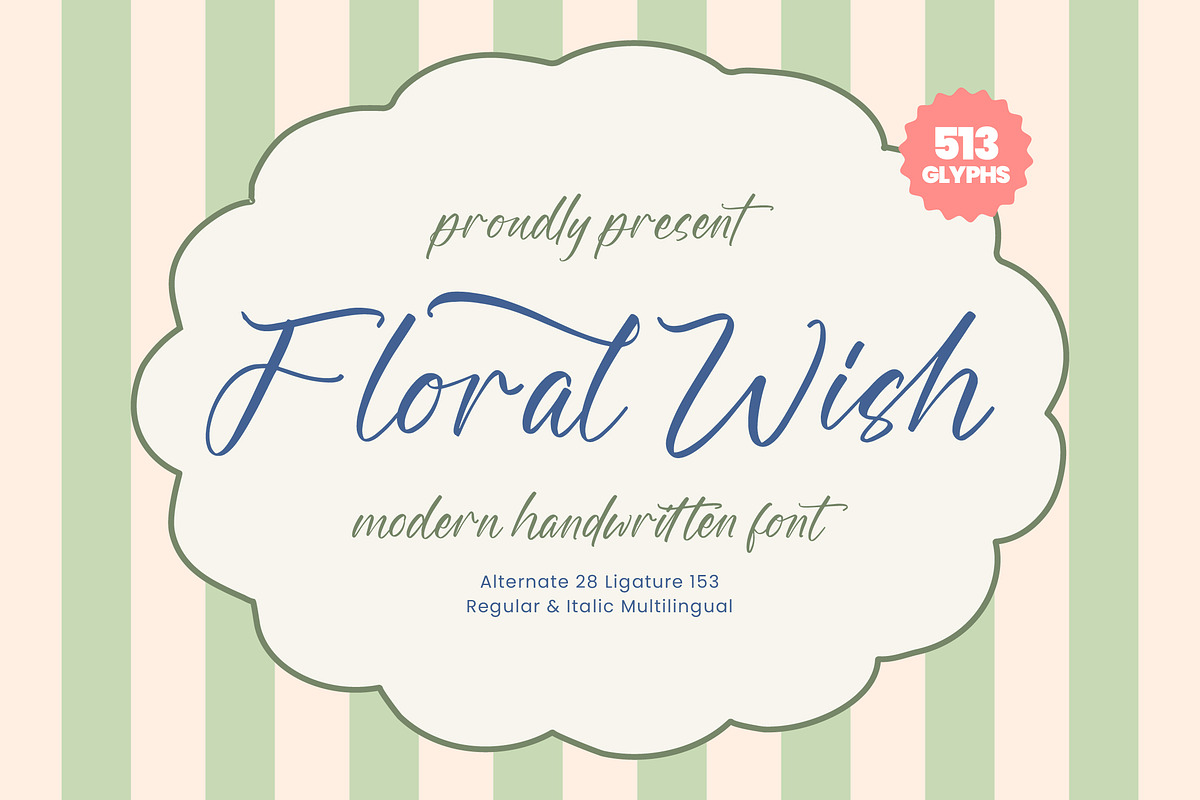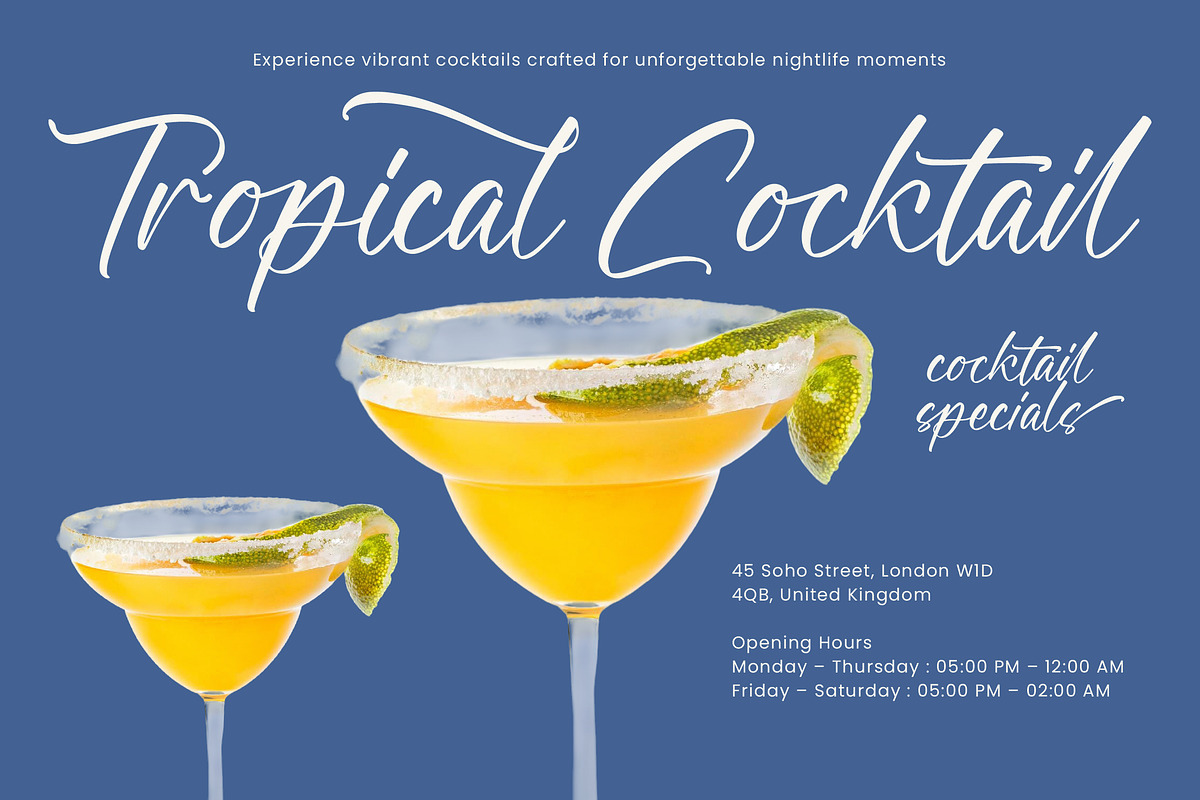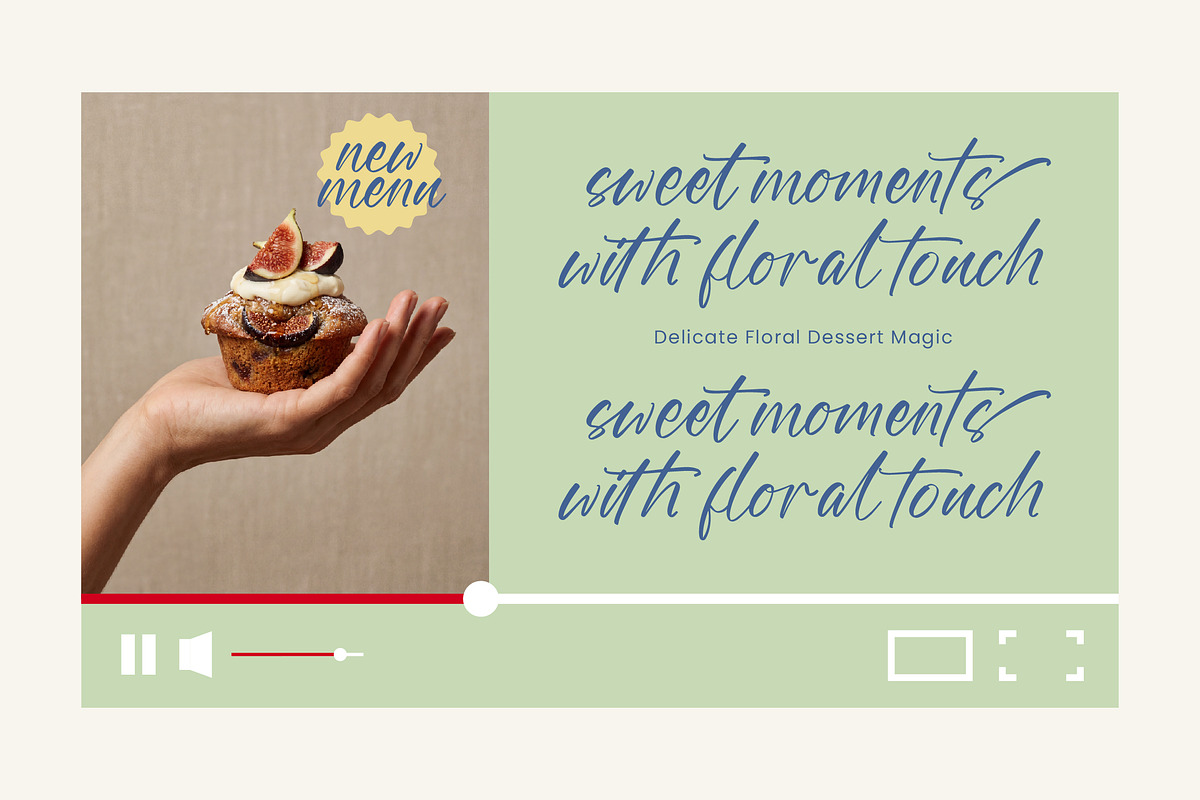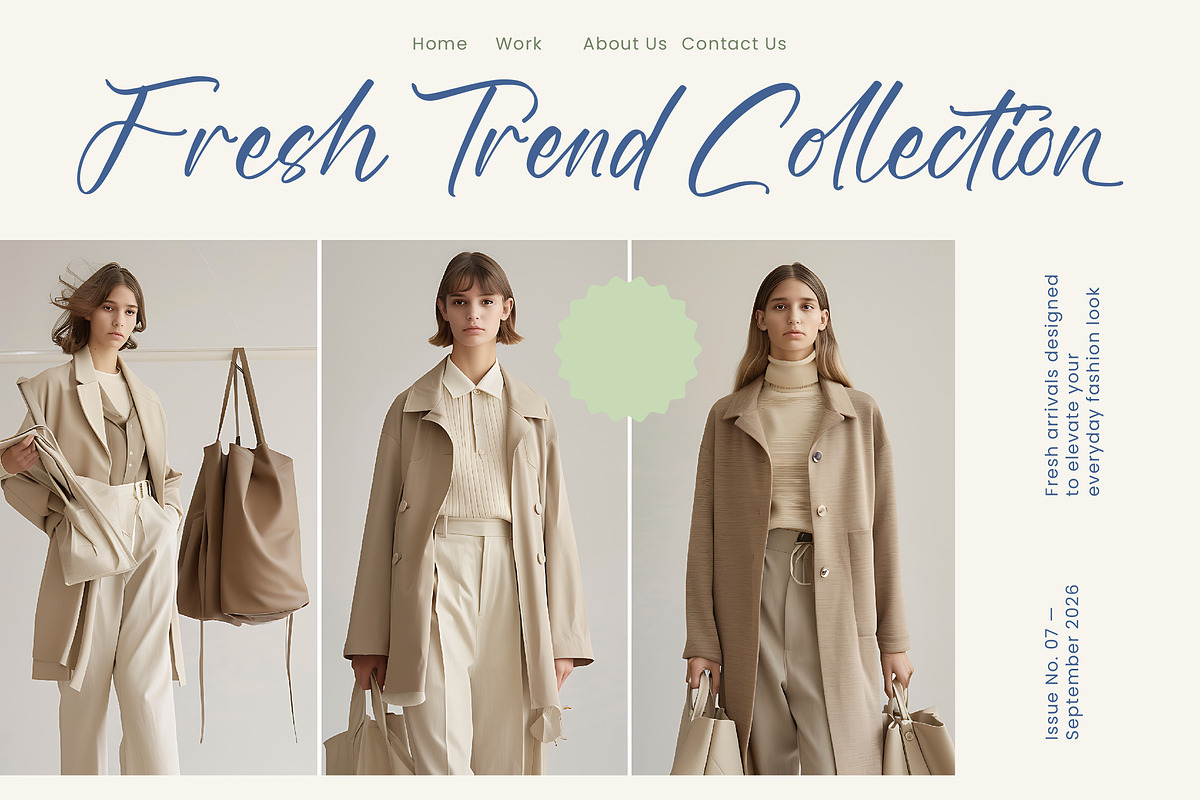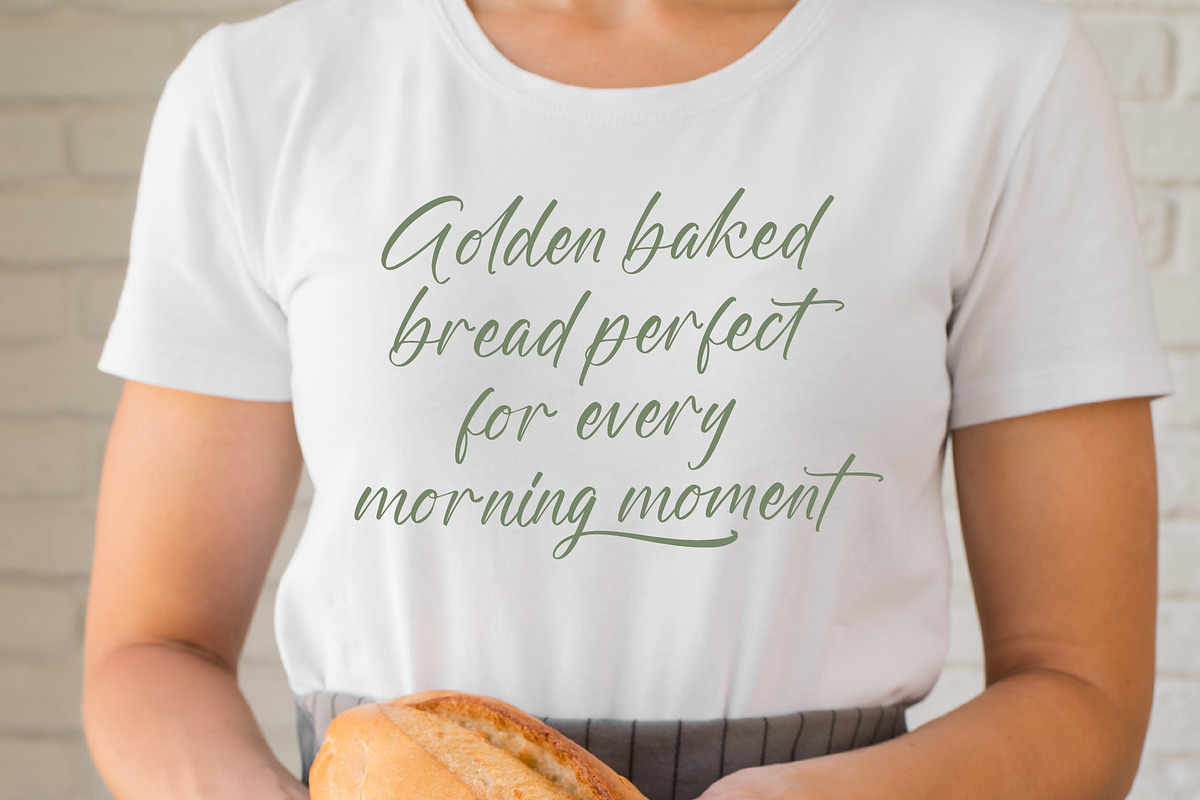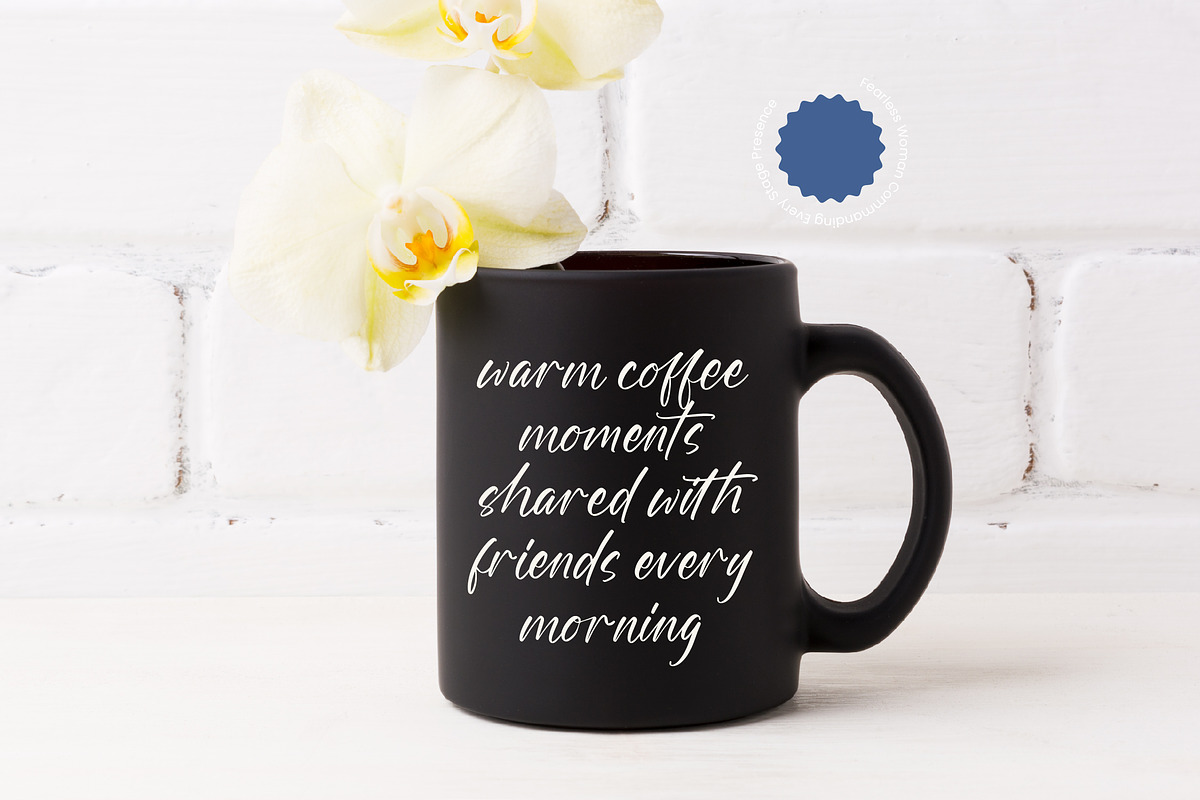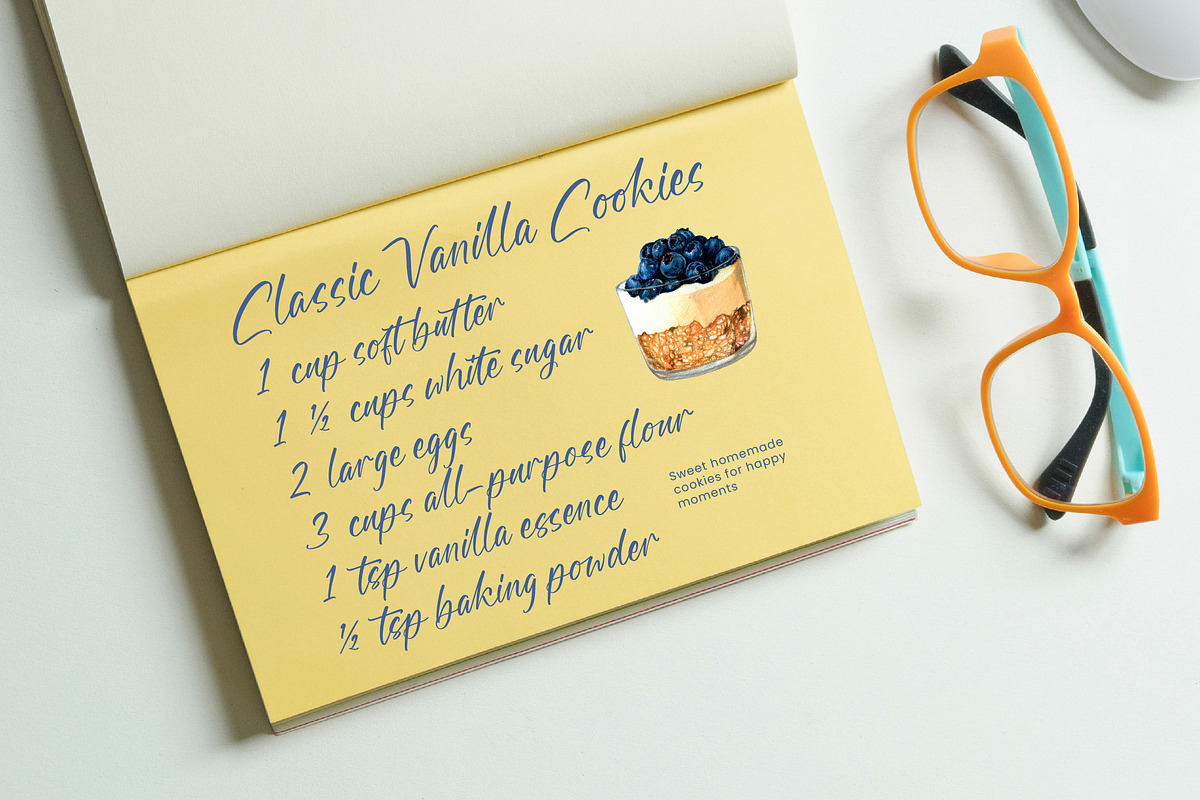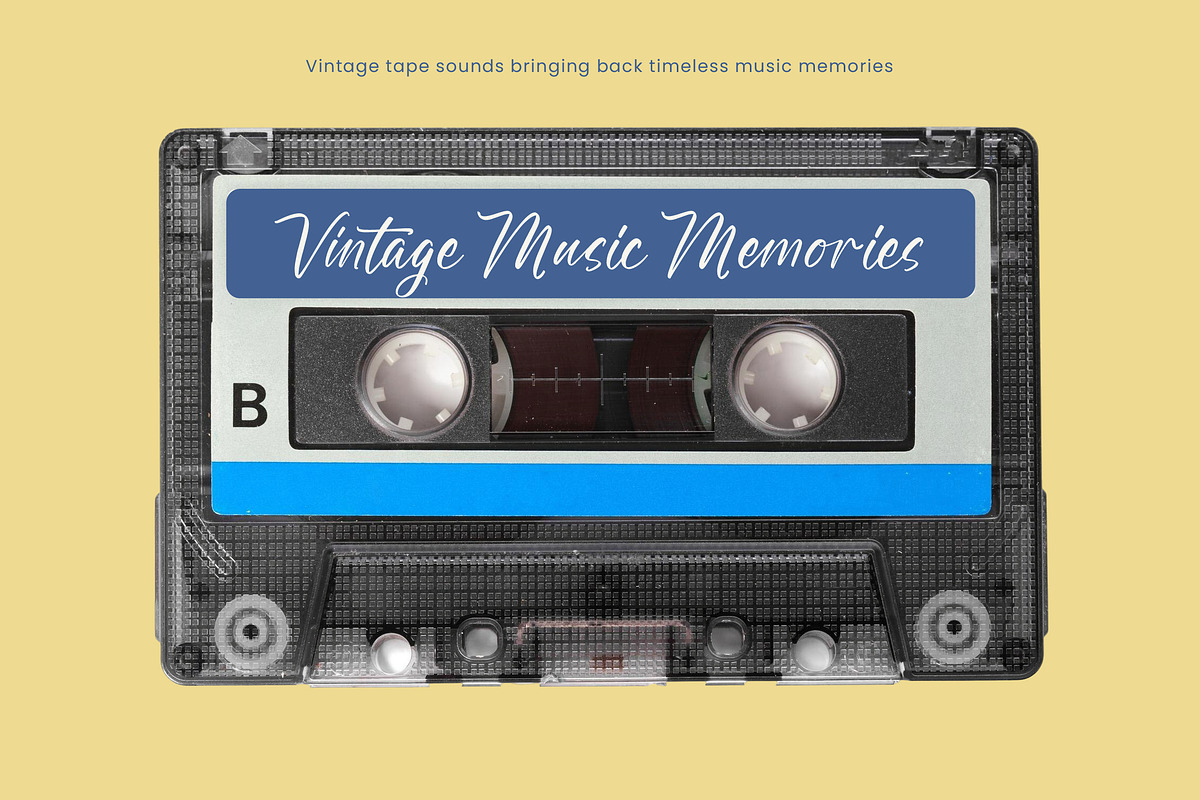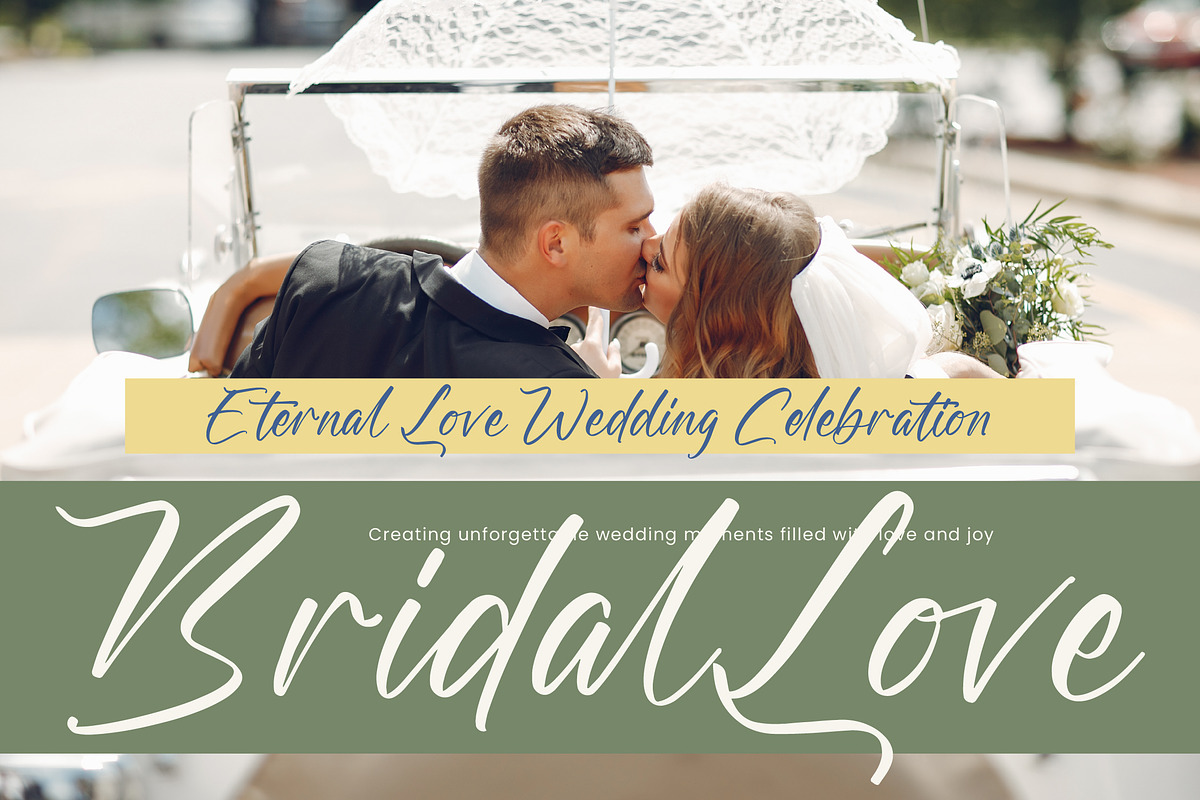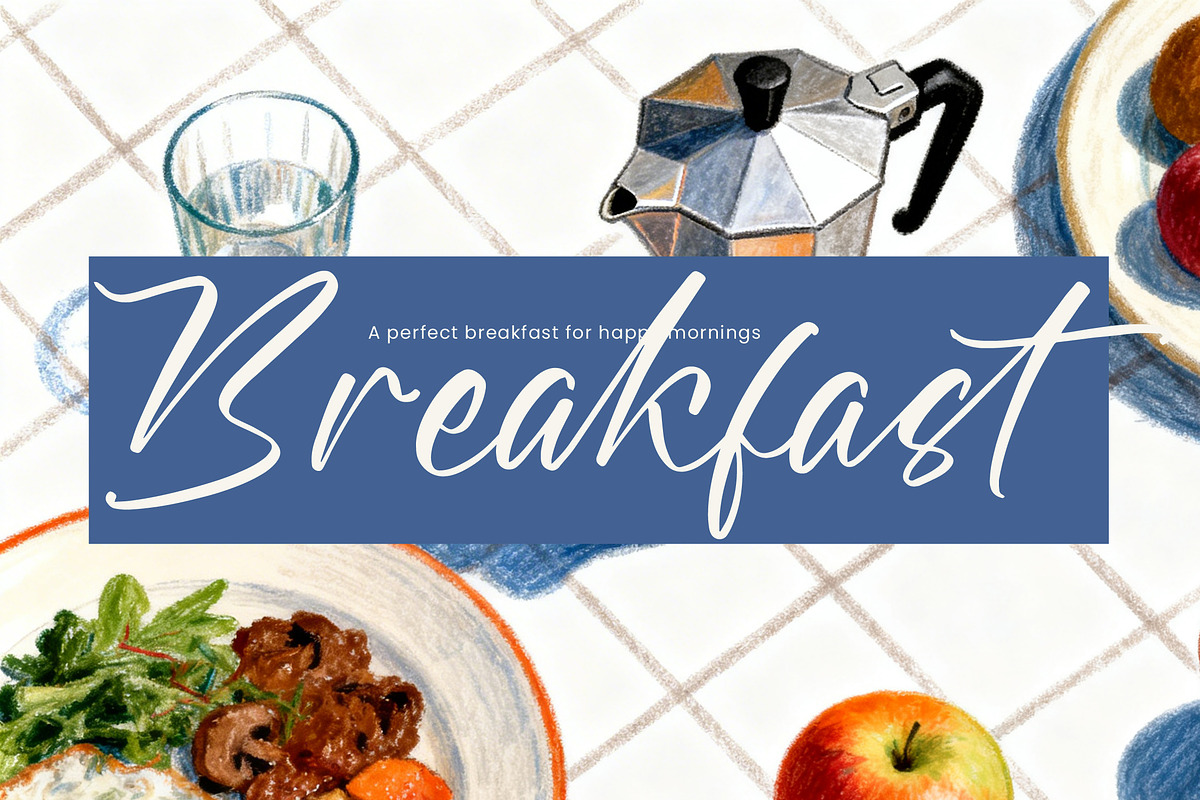
Floral Wish Handwritten Font
Floral Wish - Modern Handwritten Font , Embrace the delicate allure of Floral Wish, a masterfully crafted typeface that breathes life into every word with its graceful, flowing strokes. It is the perfect choice for creators seeking a touch of natural beauty and effortless sophistication in their next creative project.
Drawing inspiration from the rhythmic movements of botanical sketches and the intimacy of handwritten notes, this font captures a timeless garden-fresh atmosphere. Its airy loops and refined curves evoke a sense of organic growth and artistic freedom that feels both personal and polished.
This modern serif display alternative offers a unique personality that balances casual charm with luxury typography standards. While it maintains a high-contrast serif feel in its weight distribution, it acts as an essential editorial font for creating a lasting branding impact.
Perfectly aligned with the current modern serif trend, this typeface transcends standard scripts by offering a more character-driven typography experience. It meets the demand for editorial display fonts that feel both personalized and professional in a digital-first design world.
Elevate your logo design and high-end branding projects with a font that excels in editorial layouts and luxury packaging. It is a quintessential choice for wedding invitations, fashion lookbooks, and any creative work that requires a signature touch.
This comprehensive package includes over 500 glyphs, featuring a rich library of ligatures and alternates to customize your text. With beautiful swashes and full multilingual support for international characters, it ensures your message reaches a global audience with impeccable style.